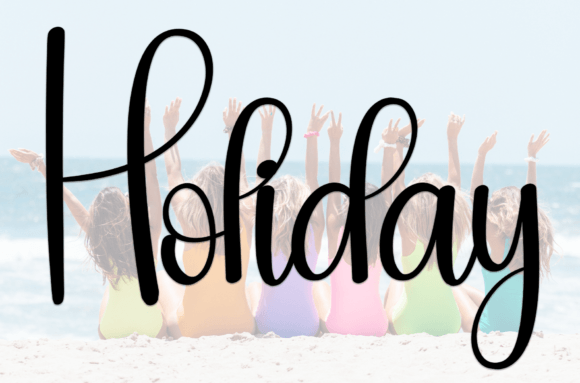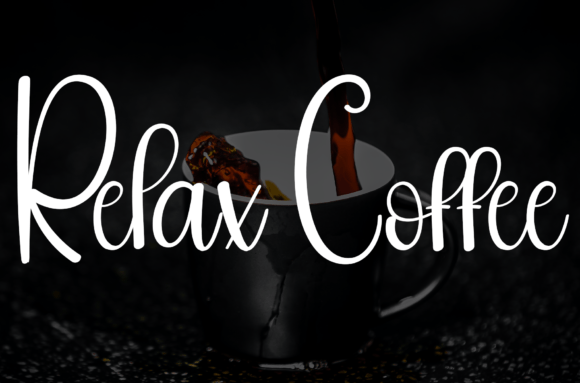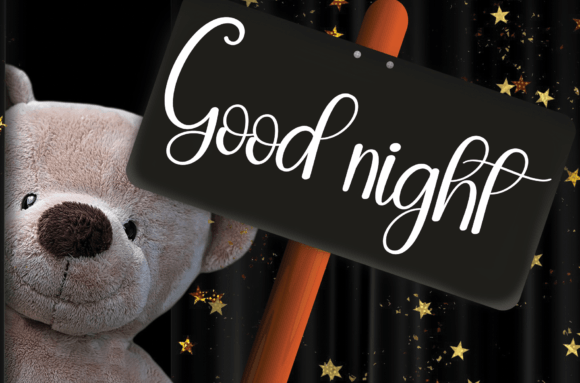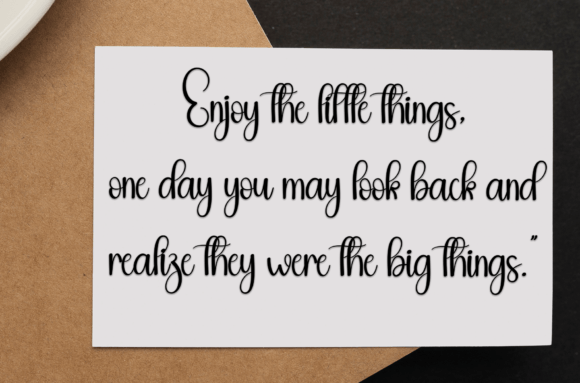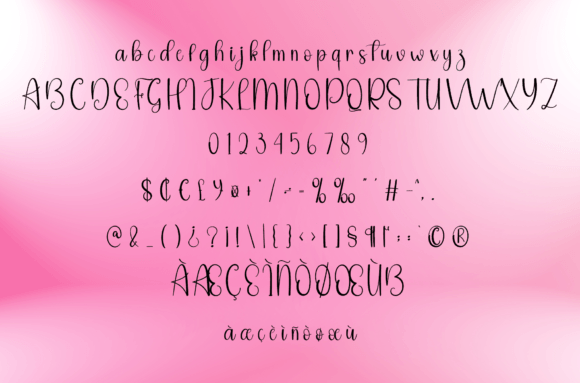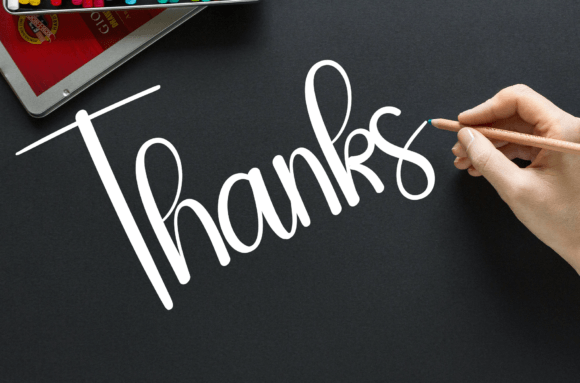
Bakery Font: The Sweetest Addition to Your Design Collection
Are you a designer or crafter looking for a font that adds a touch of whimsy and fun to your projects? Look no further than Bakery Font! This sweet and friendly handwritten font is perfect for creating wedding invitations, cards, and other designs that require a playful and charming aesthetic.
What Makes Bakery Font So Special?
Bakery Font is a unique and eye-catching font that is sure to make your designs stand out. Its cute and fun style makes it ideal for a variety of projects, from wedding invitations and cards to party decorations and social media graphics. The font’s friendly and approachable feel makes it perfect for designers and crafters who want to add a personal touch to their work.
Characteristics of Bakery Font
- Handwritten style: Bakery Font has a beautiful, handwritten style that gives it a personal and unique feel.
- Cute and fun: The font’s playful and whimsical style makes it perfect for designs that require a touch of fun and personality.
- Sweet and friendly: The font’s sweet and friendly feel makes it ideal for wedding invitations, cards, and other designs that require a warm and inviting aesthetic.
- Versatile: Bakery Font can be used for a variety of projects, from digital designs to print materials.
Uses for Bakery Font
Bakery Font is a versatile font that can be used for a wide range of projects, including:
- Wedding invitations: The font’s sweet and romantic style makes it perfect for wedding invitations and other wedding-related designs.
- Cards and stationery: Bakery Font is ideal for creating fun and playful cards and stationery for special occasions.
- Party decorations: The font’s cute and fun style makes it perfect for creating party decorations, such as banners and garlands.
- Social media graphics: Bakery Font can be used to create fun and engaging social media graphics, such as Facebook posts and Instagram stories.
Tips for Using Bakery Font
Here are a few tips for using Bakery Font in your designs:
- Pair it with other fonts: Bakery Font pairs well with other fonts, such as serif and sans-serif fonts. Experiment with different font combinations to find the perfect look for your design.
- Use it for headings and titles: The font’s playful and whimsical style makes it perfect for headings and titles. Use it to add a touch of fun and personality to your design.
- Experiment with colors: Bakery Font looks great in a variety of colors. Experiment with different colors and color combinations to find the perfect look for your design.
Bakery Font is a sweet and friendly handwritten font that is perfect for designers and crafters who want to add a touch of fun and personality to their projects. Its cute and playful style makes it ideal for wedding invitations, cards, party decorations, and social media graphics. With its versatile style and wide range of uses, Bakery Font is sure to become a favorite in your design collection.